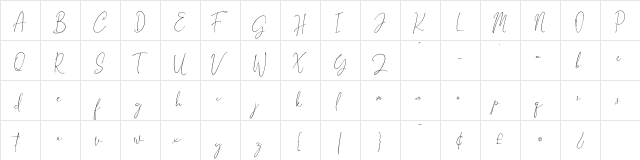
Gravity Handwritten Regular
| Designer | Donis Miftahudin |
Design Context for Gravity Handwritten Typeface
Gravity Handwritten brings a calligraphic fluidity to the page — its connecting strokes and expressive curves give it an unmistakably human quality.
Font Pairing: Combine Gravity Handwritten with a simple geometric sans for maximum contrast — the tension between flowing curves and clean structure is a classic typographic pairing.
Pro Tip: Use Gravity Handwritten for short runs of text — names, titles, or taglines. Extended body copy in script faces tires the eye quickly.